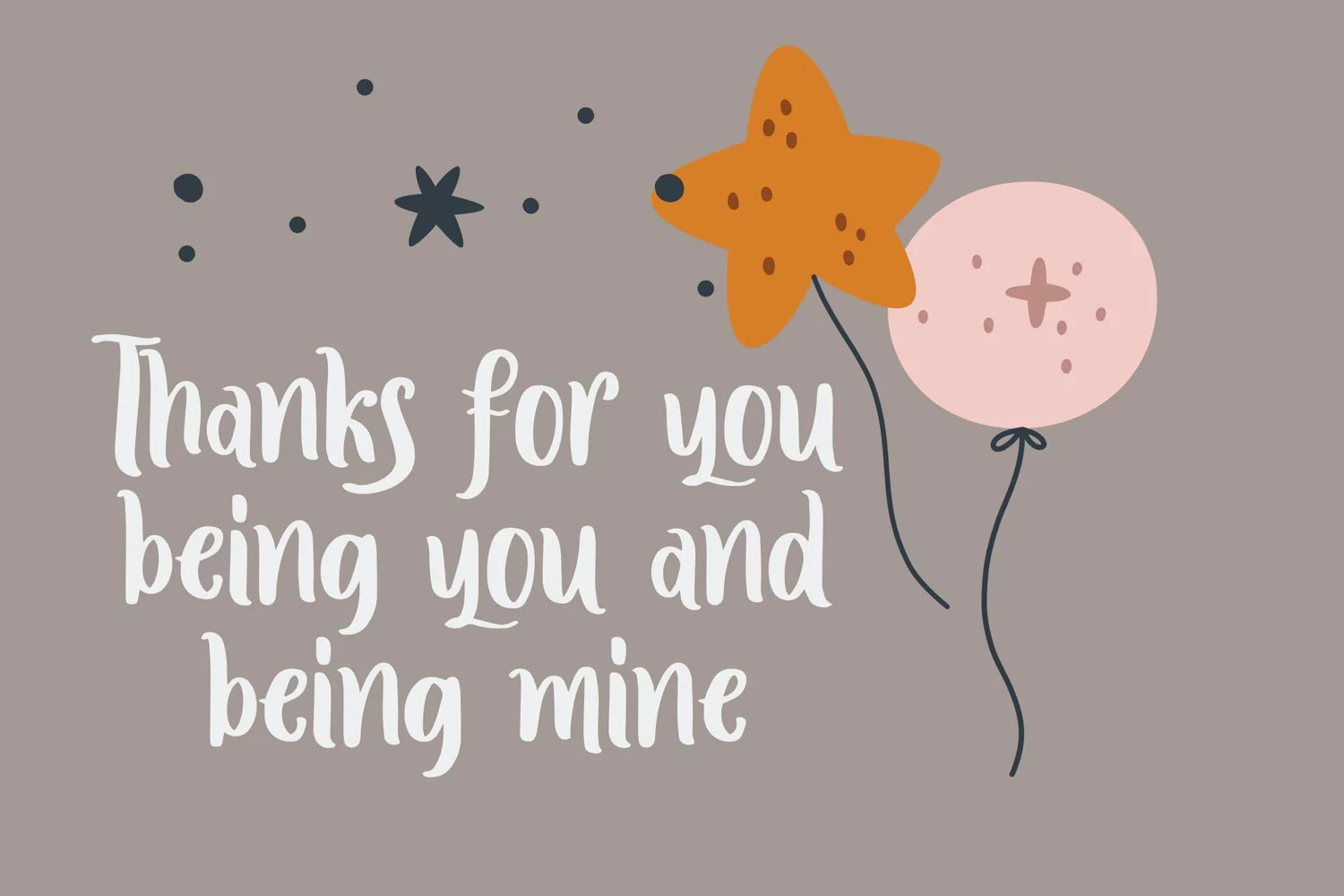
Candle Light - Handwriting Font that contain lowercase, uppercase, symbol, and also support multi language. There’s a lot ligatures in this font. This Font also comes with ligatures, alternates and many more. this font suitable for fashion, branding, catalog and other design what you want.
Candle Light